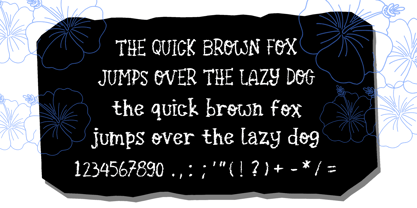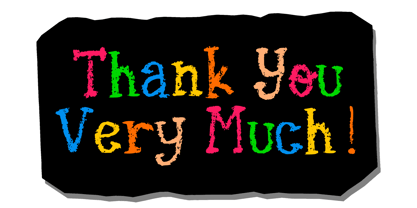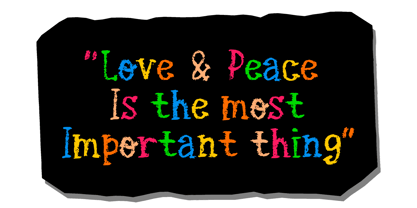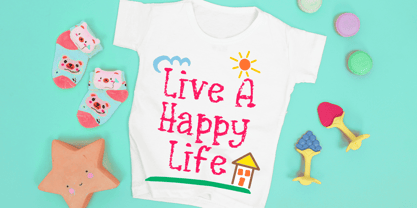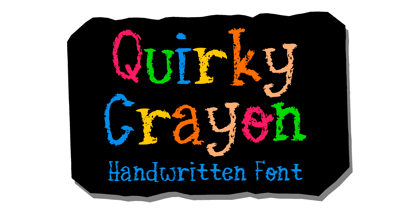
Quirky Crayon
The Quirky Crayon Font Family was designed by Gabriel Valentinus and published by Mvmet. Quirky Crayon contains 1 styles. More about this family
Quirky Crayon is a fun and playful crayon or chalk handwritten font suitable if you want to add a sense of excitement and happiness to your designs. It will elevate a wide range of design projects to the highest level. You can use this font for many design ideas such as stickers, t-shirt designs, amazing logo designs, magazine or book covers, comics, cartoon drawings, and many more. This font will add a super cool touch to your designs!